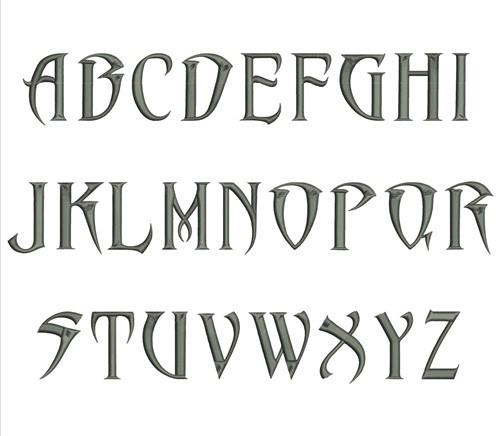
Easy Embroidery is happy to present Maleficent Embrilliance machine embroidery font which has Decorative machine embroidery font suitable for fantasy-themed projects, featuring bold, intricate letters with elongated serif details. Ideal for embellishing costumes or decor. Available in BX font and Embrilliance formats. included. If you would like to view more embroidery fonts and alphabets please search our embroidery fonts page.